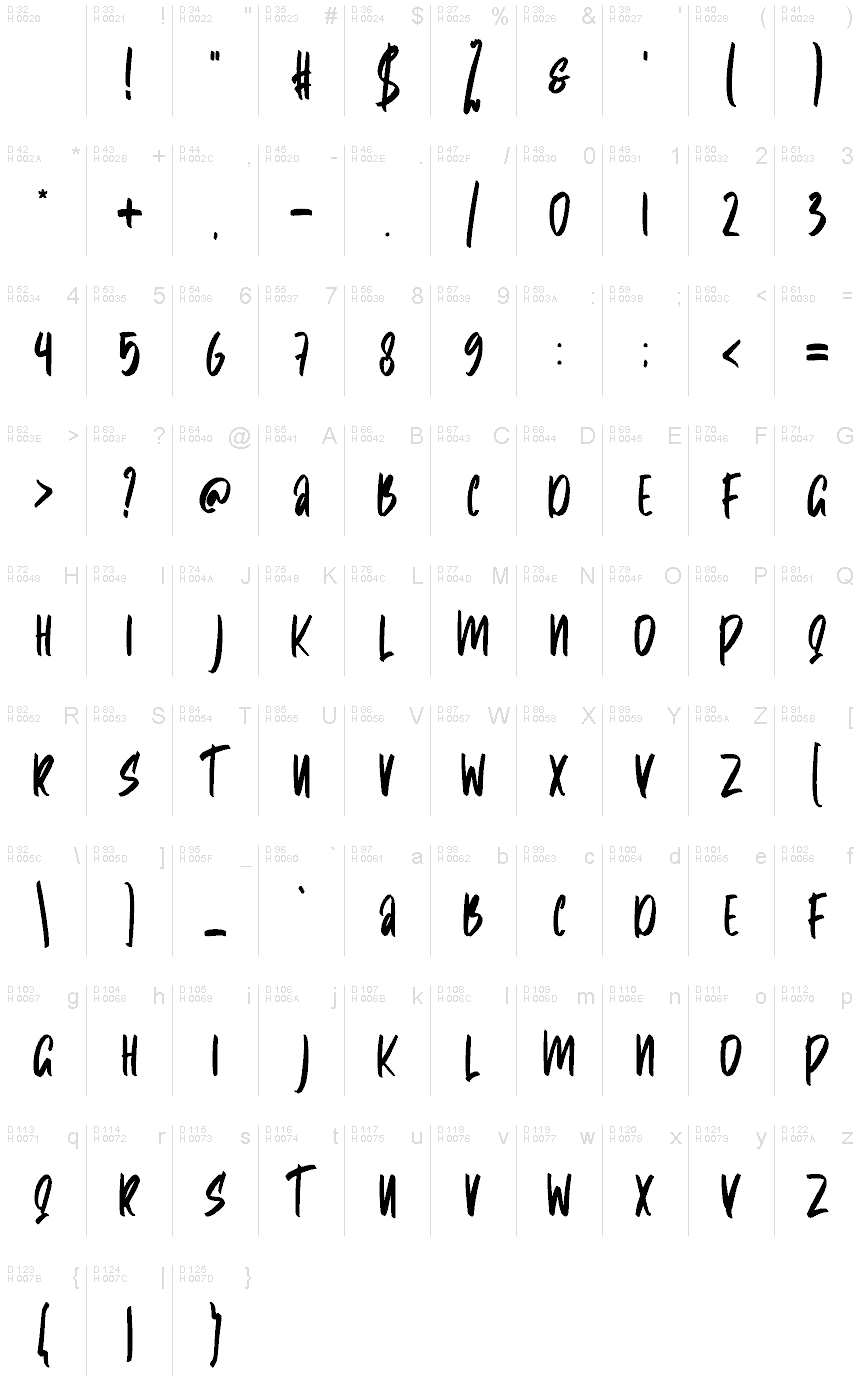
Satriya
Satriya font is a handwritten and condensed typeface designed by Skiiller Studio. The expressive and modern appearance is casual and slightly energetic, ensuring to turn headings or even subheadings into attractive points on any given page. Artistic letterforms give this free handwritten font that special touch, altering an entire viewer’s perspective about your design.
This classic set of characters should be used with caution. Some familiarity with using artistic fonts will reflect in the quality of your projects. Use it for flyers, signs & stands, banners, posters including those made for film titles or video games, banners printed or digital ads, social media posts even book cover with creative flair needed.